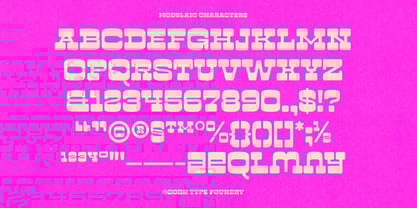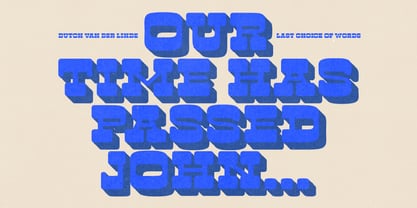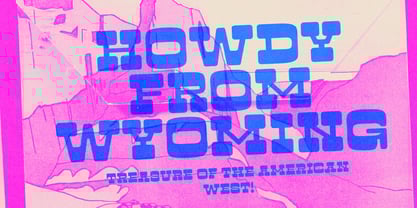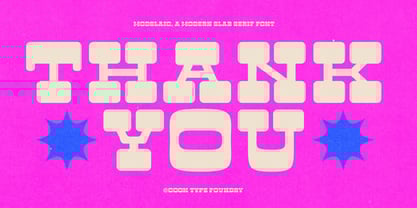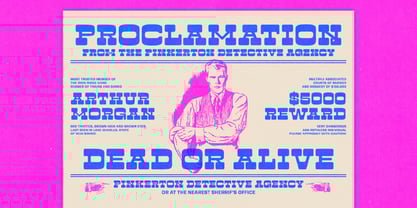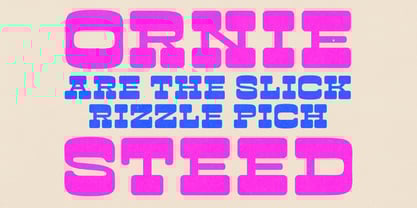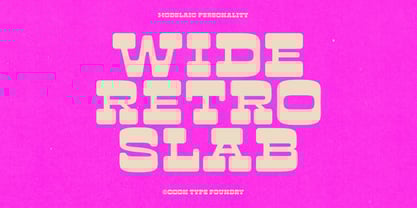
Cook Modslaic
by Graphicook Studio
The Cook Modslaic Font Family was designed by Gumilar Febriansyah and published by Graphicook Studio. Cook Modslaic contains 1 styles.
Modslaic inspired from Western design, this typeface features a rounded and contrasting slab serif style, perfect for all your vintage artwork.
Designers: Gumilar Febriansyah
Publisher: Graphicook Studio
Foundry: Graphicook Studio
Design Owner: Graphicook Studio